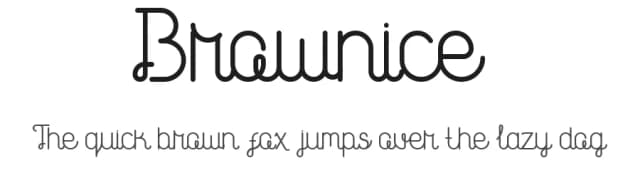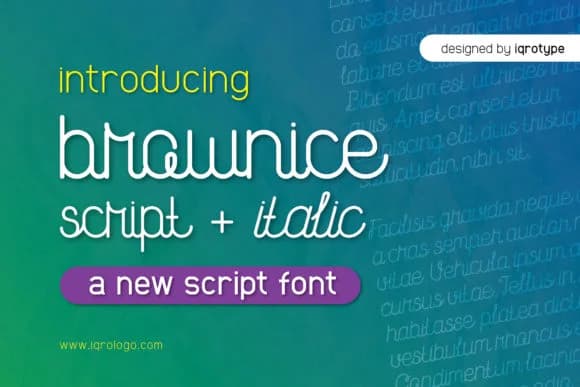
Brownice by iqrotype is a contemporary script with natural flow and genuine personality that moves beyond typical handwriting effects. It brings a modern sensibility to handwritten aesthetics without sacrificing readability or succumbing to overly decorative flourishes. This typeface works best when you need your designs to feel warm, personal, and intentional, striking that balance between approachable and truly sophisticated.
Wedding invitation suites are a natural home for Brownice, where its balance of elegance and warmth helps couples set an intimate tone that guests genuinely remember. Boutique skincare packaging gets real advantage from its modern edge, giving emerging brands the visual sophistication they need to compete confidently with established names on retail shelves. Social media graphics and brand storytelling benefit similarly, since this typeface carries enough character to capture genuine attention in crowded feeds while remaining fundamentally professional and trustworthy. Custom personal stationery and DIY craft labels also gain new intentionality and polish from this design. The italic variant adds welcome flexibility for visual emphasis and hierarchy without requiring additional fonts in your toolkit.
Brownice Font is a script font that shines as a display or heading face. Pair it with a clean sans-serif or serif font for body text β the contrast creates a clear hierarchy while the two styles stay balanced and easy to read.